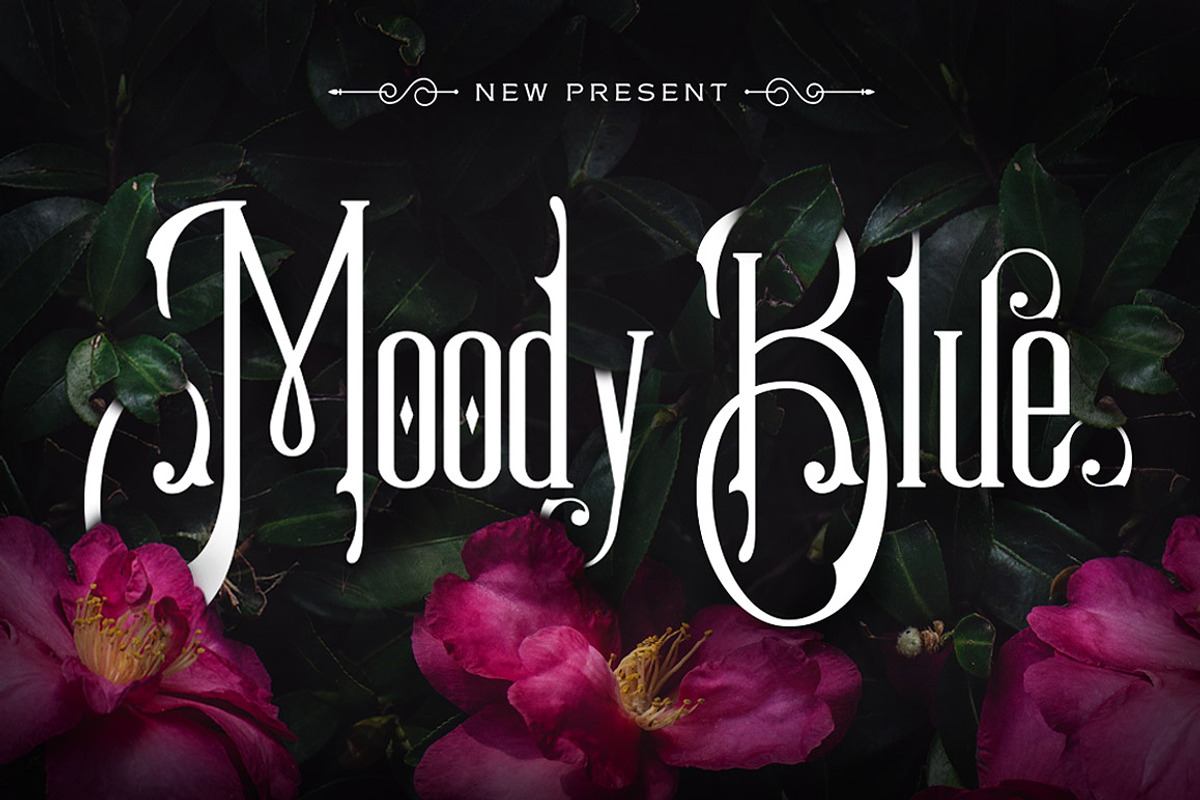
Moody Blue | An Elegant Vintage Font Free Download
Refined, nostalgic, and full of character, Moody Blue | An Elegant Vintage Font Free Download is a beautifully crafted typeface that blends timeless vintage style with modern elegance. Ideal for logos, album covers, packaging, posters, and editorial layouts, this font delivers a sophisticated retro aesthetic that stands out.
With its graceful curves, high-contrast strokes, and subtle serif details, Moody Blue evokes the charm of mid-century design while maintaining a fresh and polished look. It’s perfect for projects that need both visual impact and a touch of classic romance.